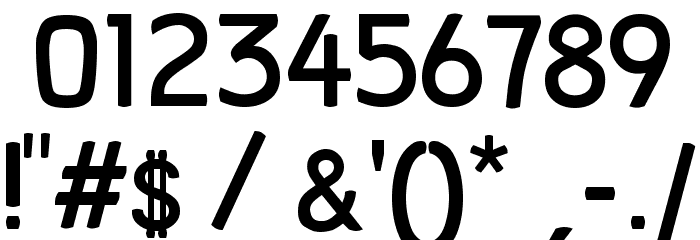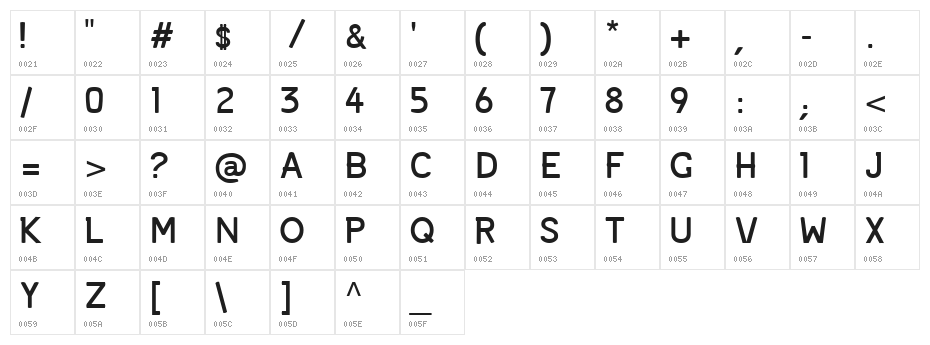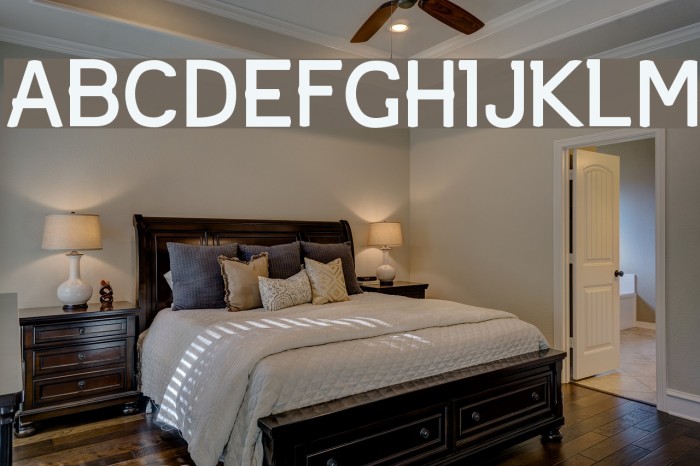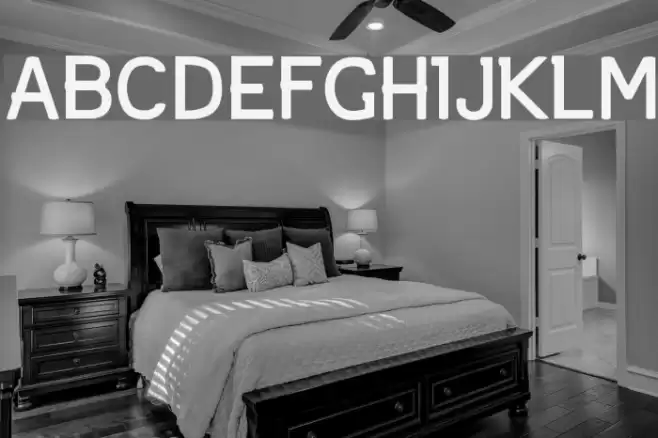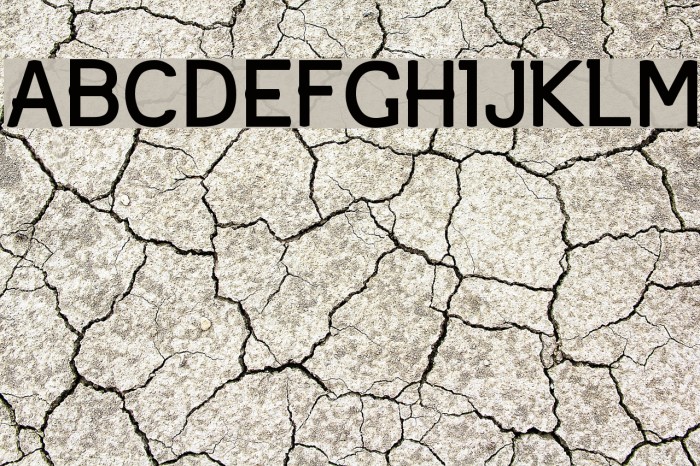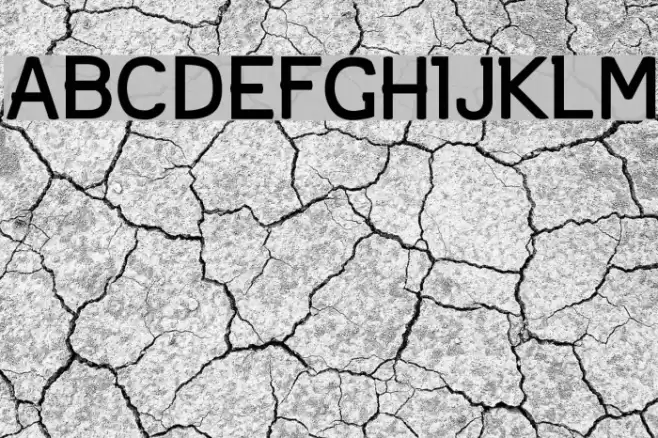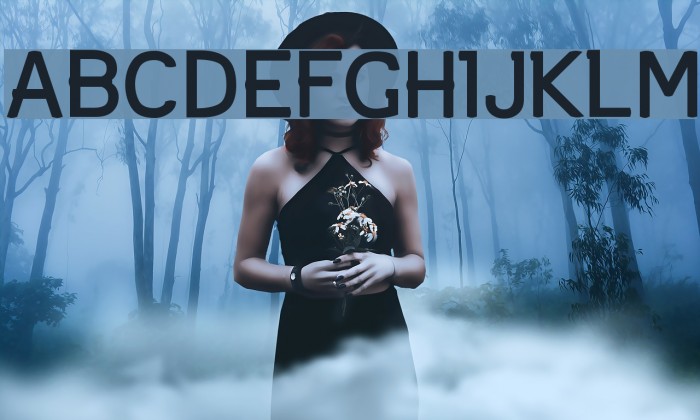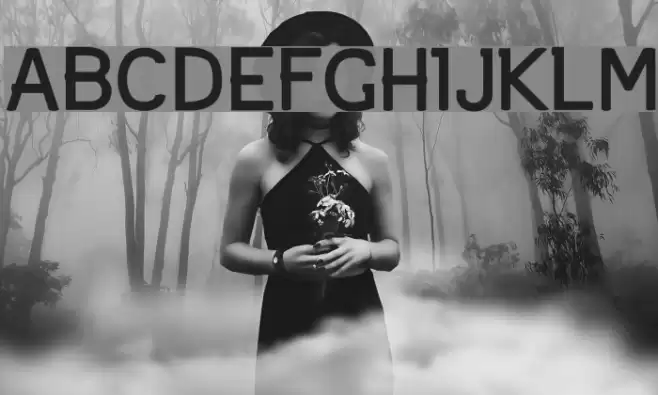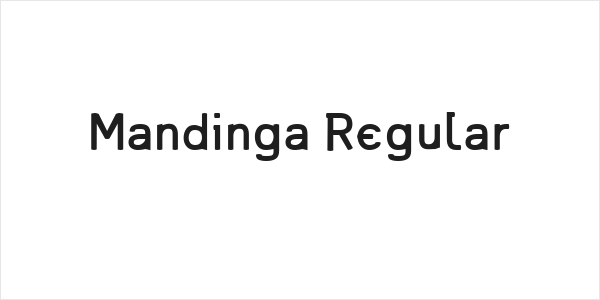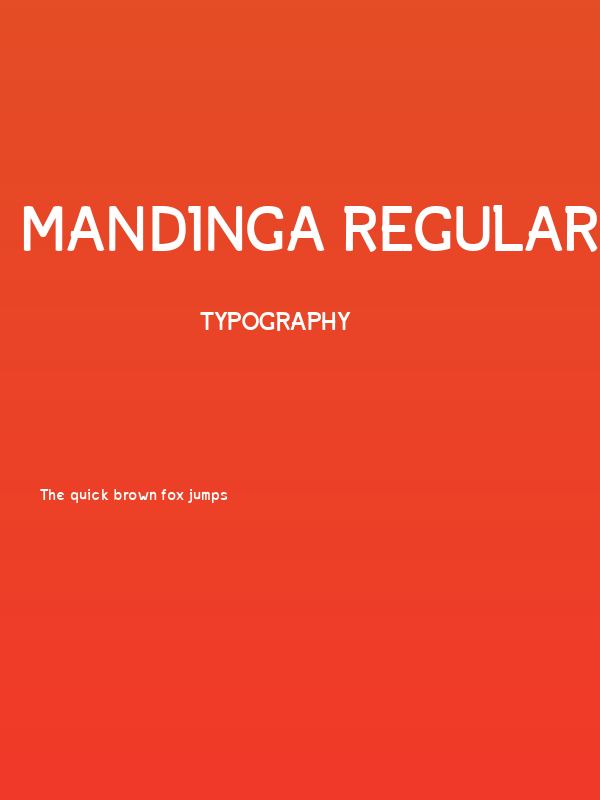
Mandinga Regular Font
Mandinga Regular Description
This font features a clean and modern sans-serif design with uniform stroke widths, providing a balanced and straightforward appearance. The characters are well-proportioned, with a slight geometric influence that adds a contemporary feel. The uppercase letters are bold and assertive, while the lowercase letters maintain a friendly and approachable demeanor. The numerals are clear and easy to read, making them suitable for various applications. Special characters are included, enhancing the font's versatility. Overall, this typeface is ideal for projects that require clarity and modernity.